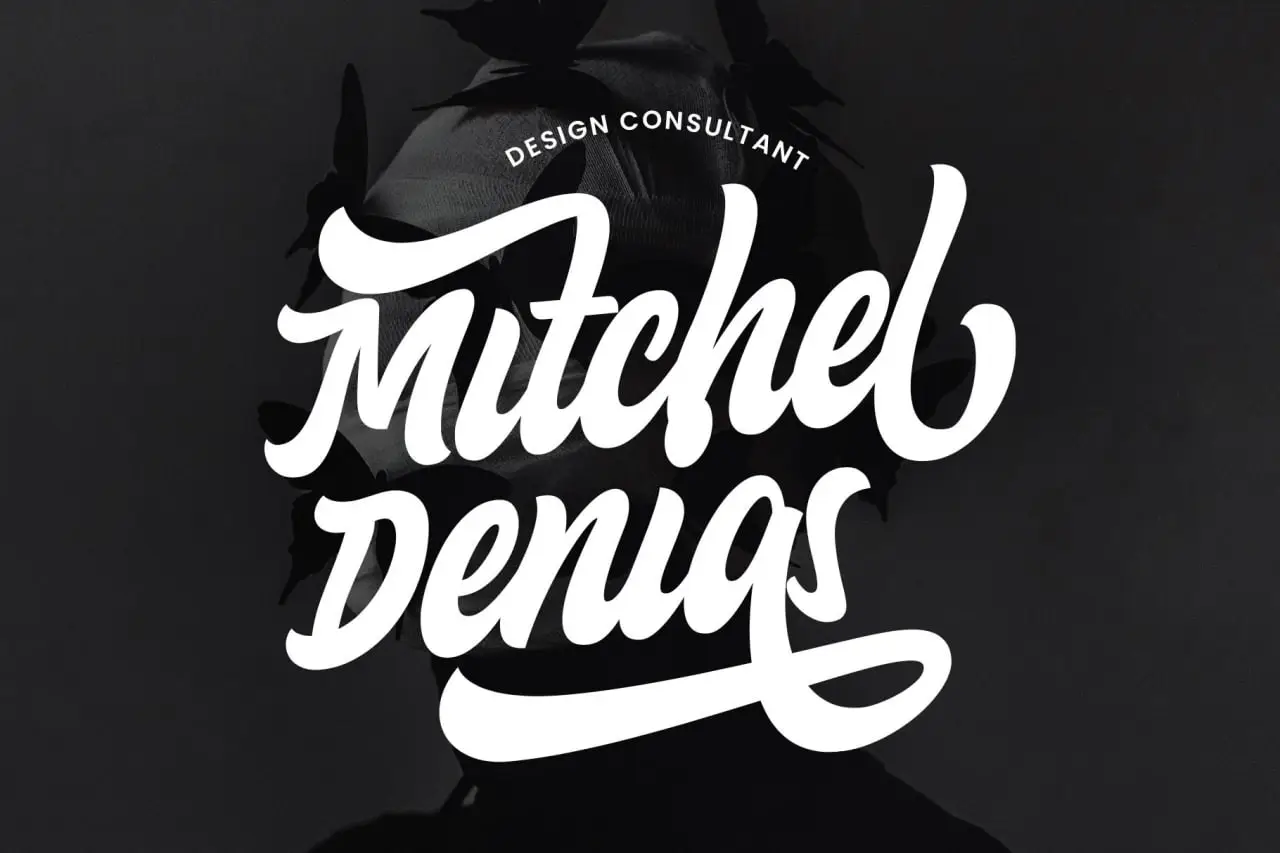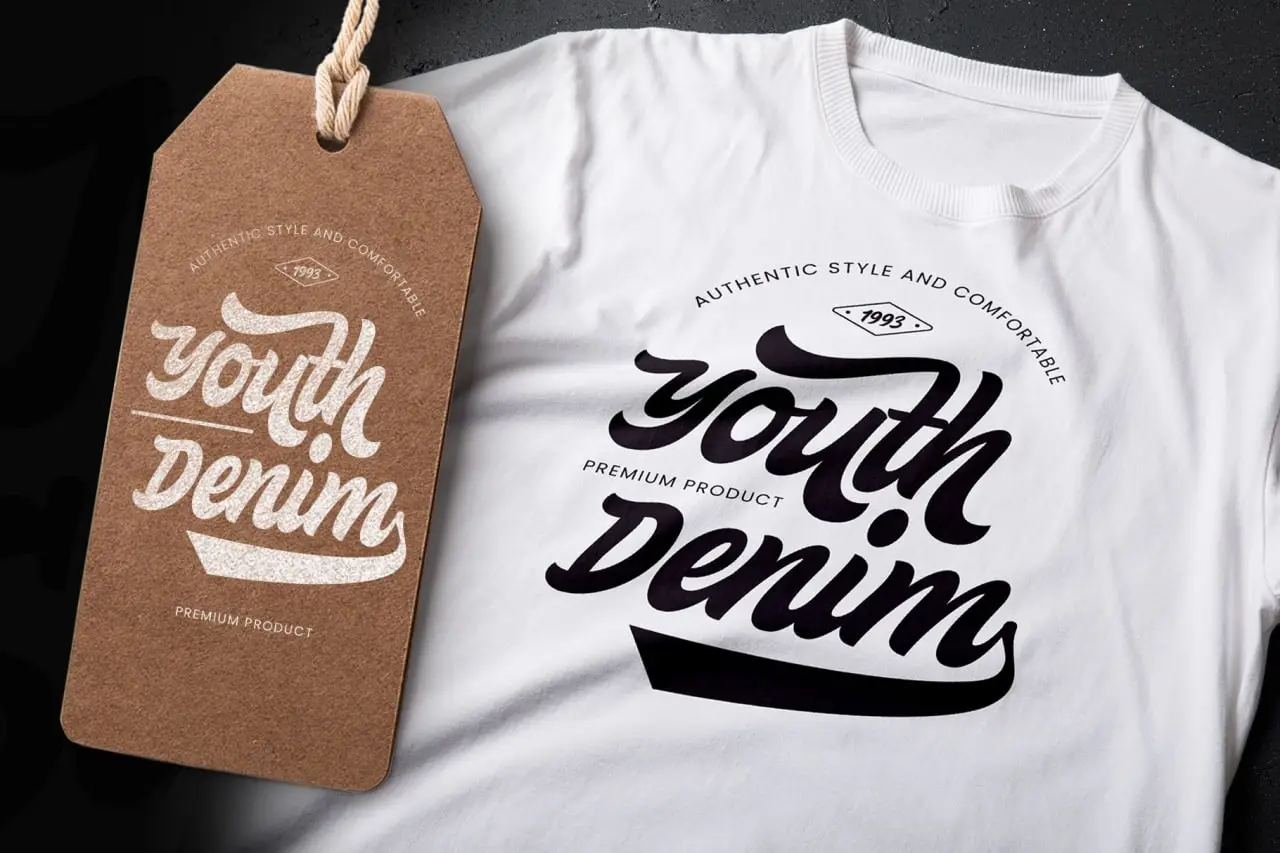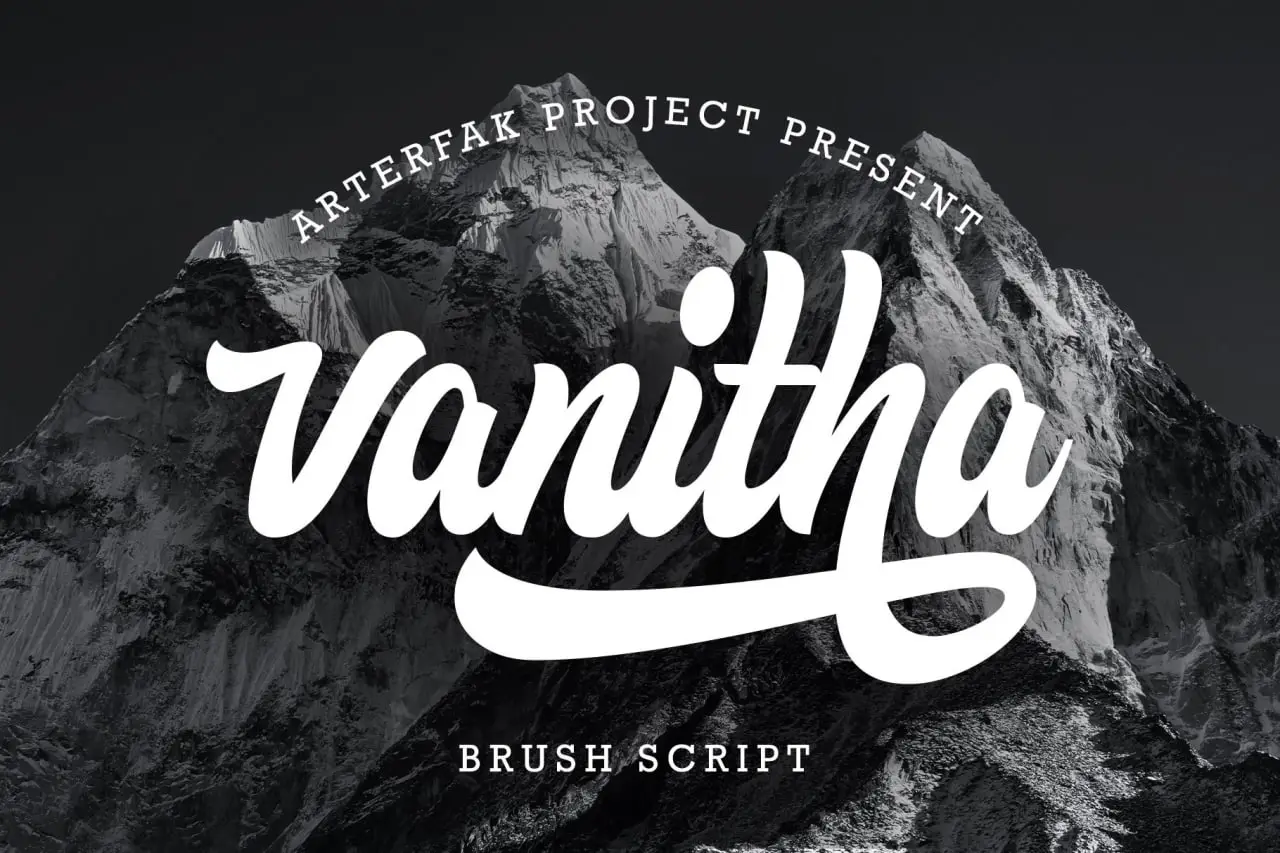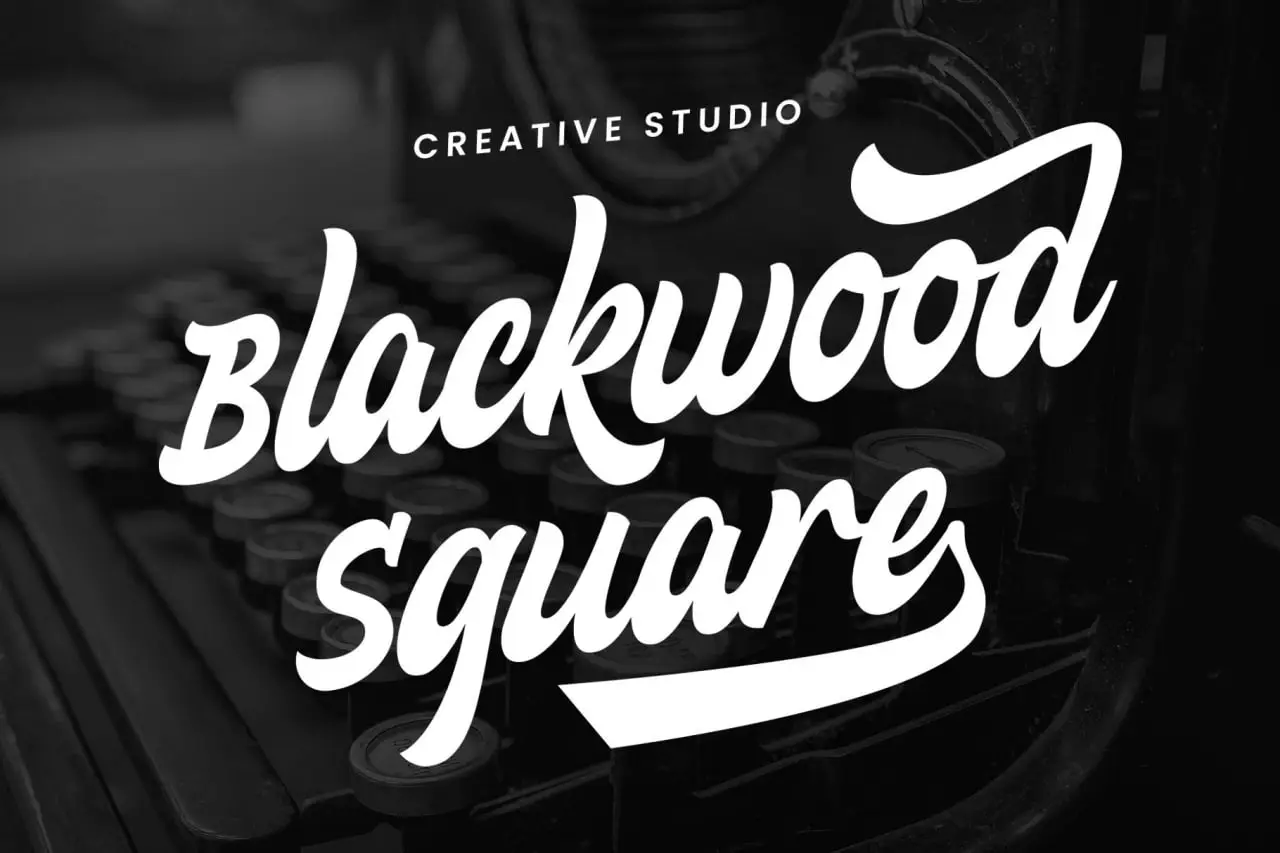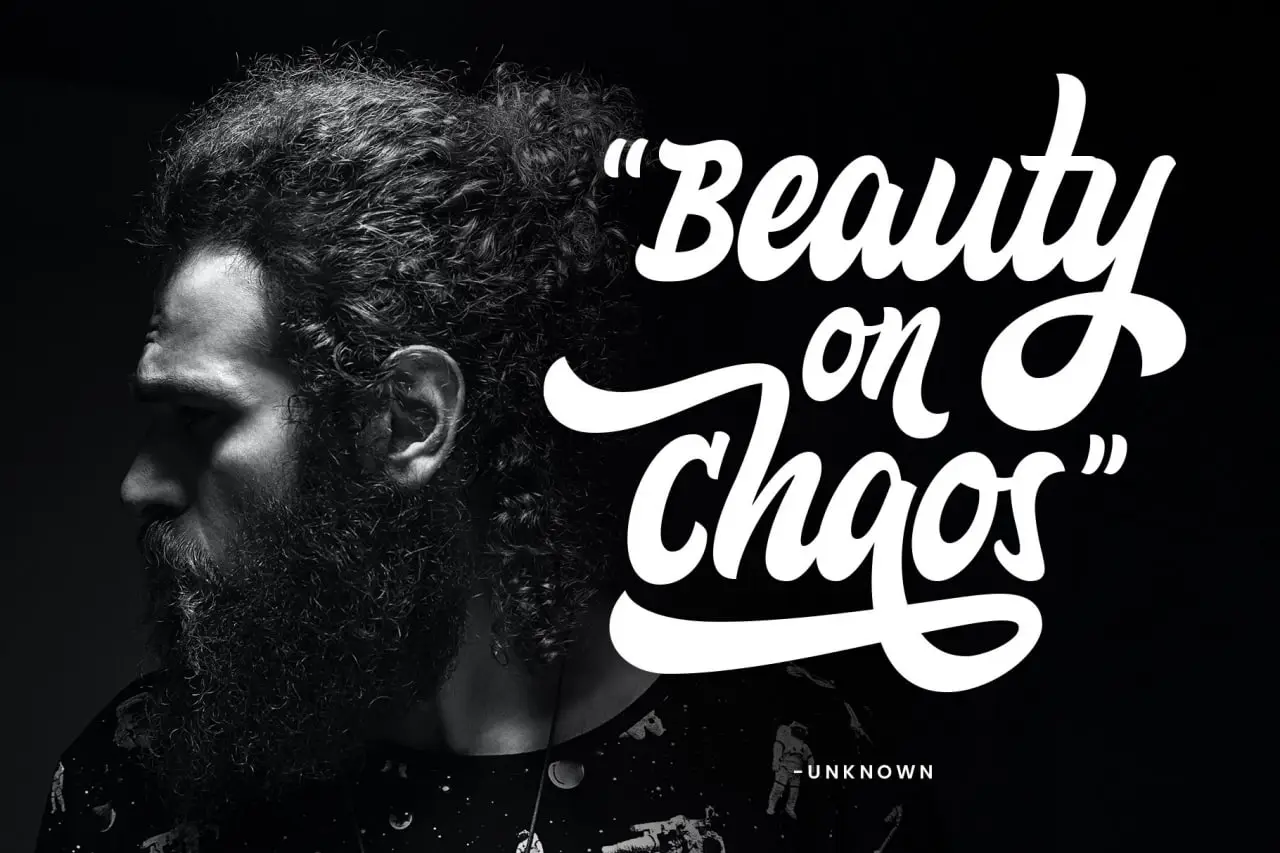
The Vanitha Font is a beautifully crafted typeface that combines elegance with modernity. Its unique design features a blend of smooth curves and sharp edges, making it suitable for a variety of applications.
- Stylish and contemporary design
- Multiple weights available for versatility
- Supports a wide range of languages
- Styles: Regular, Bold, Italic
This font is perfect for branding, logos, web design, and print materials. Its versatility allows it to be used in both formal and casual contexts, making it an excellent choice for various design projects.